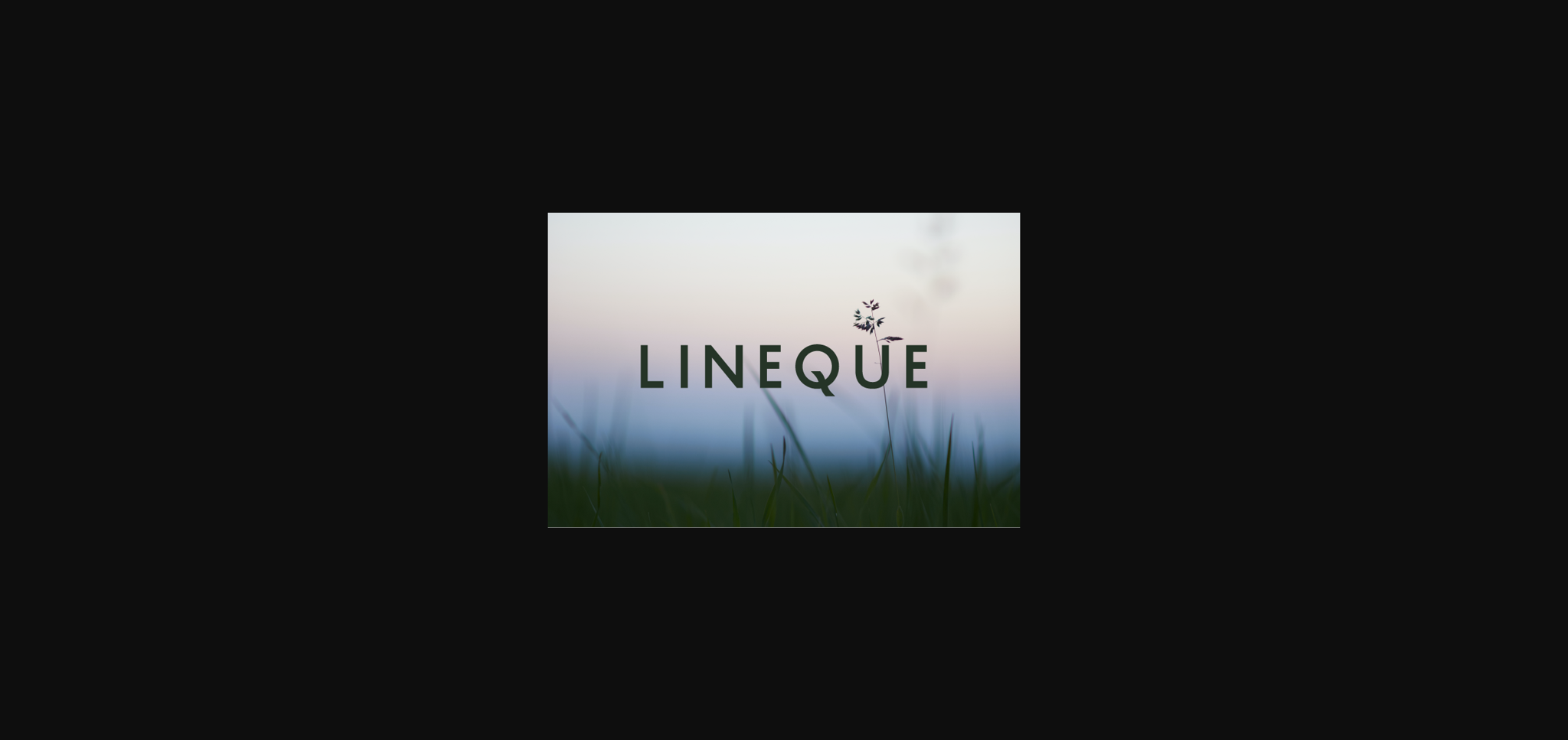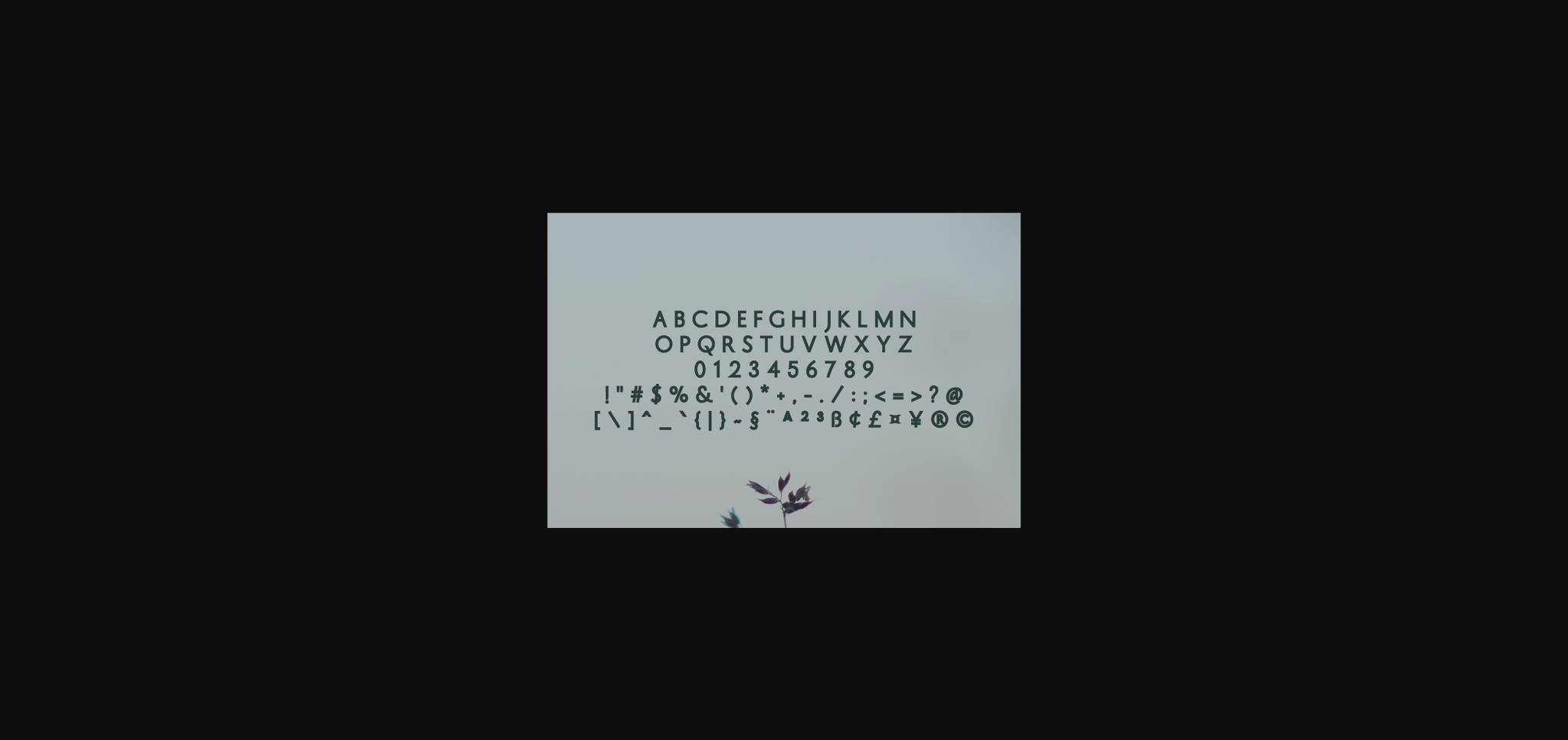
About Lineque Font
Lineque is a beautiful and strong sans serif font. Whether you’re looking for fonts for Instagram or calligraphy scripts for DIY projects, Lineque will turn any creative idea into a true piece of art!